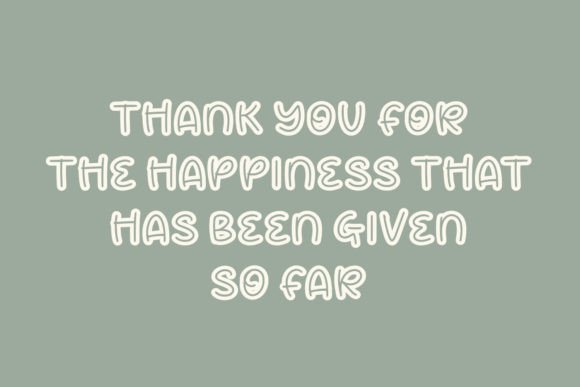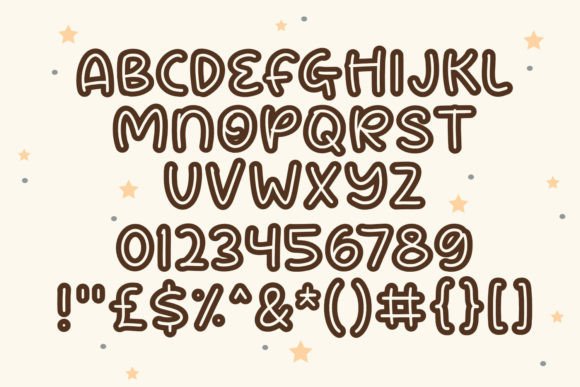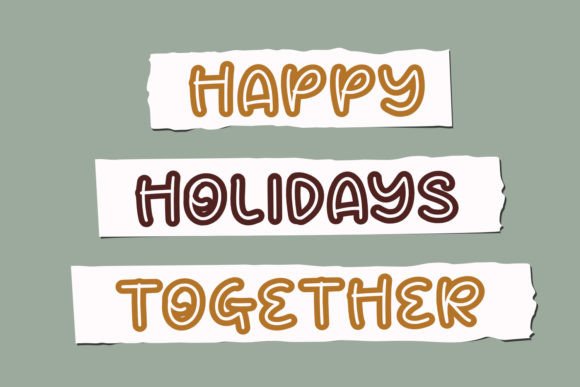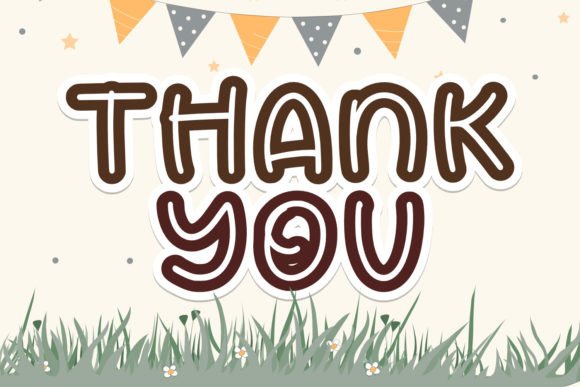
Aloha Haira Font: The Ultimate Guide to this Whimsical Handwritten Typeface
Are you a designer or crafter looking for a font that can add a touch of warmth and friendliness to your projects? Look no further than the Aloha Haira font! This adorable and whimsical handwritten typeface is sure to bring a smile to anyone’s face. In this comprehensive guide, we’ll dive into the world of Aloha Haira, exploring its features, benefits, and uses.
The Charm of Aloha Haira
The “Aloha Haira” font is an endearing and playful typeface that exudes an irresistible charm. Its rounded edges and soft curves create a sense of approachability, making it perfect for projects that require a friendly and welcoming tone. The playful letterforms are designed to evoke a sense of joy and whimsy, adding a touch of personality to any design.
Key Features of Aloha Haira
- Handwritten style: Aloha Haira is a handwritten font, which gives it a personal and unique touch.
- Rounded edges: The rounded edges of each character create a soft and approachable feel.
- Playful letterforms: The playful letterforms are designed to bring a smile to anyone’s face.
- Whimsical feel: The font has a whimsical feel that’s perfect for projects that require a touch of personality.
Benefits of Using Aloha Haira
So, why should you use Aloha Haira in your projects? Here are just a few benefits:
- Adds warmth and friendliness: The font’s soft curves and rounded edges create a sense of warmth and friendliness.
- Perfect for creative projects: Aloha Haira is ideal for creative projects, such as crafts, illustrations, and designs that require a personal touch.
- Easy to read: Despite its playful nature, Aloha Haira is easy to read, making it perfect for body text and headings.
- Versatile: The font can be used in a variety of projects, from digital designs to print materials.
Uses of Aloha Haira
Aloha Haira is a versatile font that can be used in a variety of projects, including:
- Crafts: Use Aloha Haira to add a personal touch to your crafts, such as scrapbooking, card making, and DIY projects.
- Digital designs: The font is perfect for digital designs, such as social media graphics, blog posts, and website headers.
- Print materials: Use Aloha Haira in print materials, such as brochures, flyers, and posters.
- Illustrations: The font is ideal for illustrations, such as children’s books, comics, and cartoons.
Tips for Using Aloha Haira
Here are a few tips for using Aloha Haira in your projects:
- Use it sparingly: While Aloha Haira is a beautiful font, it can be overwhelming if used excessively. Use it sparingly to add a touch of personality to your design.
- Pair it with other fonts: Aloha Haira pairs well with other fonts, such as sans-serif fonts. Experiment with different pairings to find the perfect combination.
- Adjust the size and color: Adjust the size and color of the font to suit your design. A smaller size can be used for body text, while a larger size can be used for headings.
In conclusion, Aloha Haira is a unique and charming font that’s perfect for designers and crafters looking to add a touch of warmth and friendliness to their projects. Its playful letterforms, rounded edges, and whimsical feel make it a versatile font that can be used in a variety of projects. With its ease of use and flexibility, Aloha Haira is sure to become a favorite in your font collection.